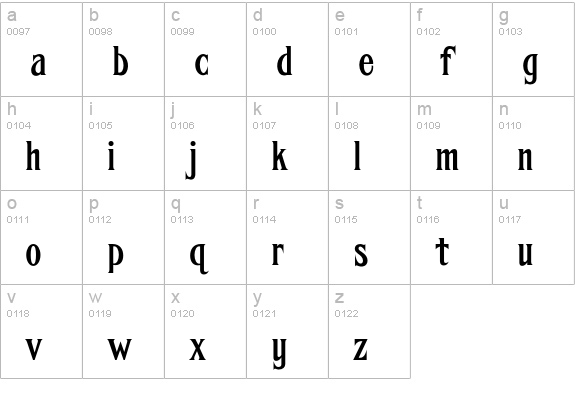
FHA Condensed French NC is a distinctive, condensed-width variant in the FHA typeface family \xE2\x80\x94 well suited to design and typography projects.
FHA Condensed French NC font is an exquisite typeface that effortlessly combines elegance with a touch of nostalgia. This condensed font exudes a sense of sophistication and refinement, making it perfect for a wide range of design projects. Its slim and sleek letterforms are delicately crafted, creating a harmonious balance between legibility and aesthetics. Designed with the utmost care and attention to detail, FHA Condensed French NC font captures the essence of French typography, adding a touch of Parisian charm to any design. Its condensed form allows for efficient use of space, making it an ideal choice for headlines, titles, and any text that needs to make a bold statement. One of the most remarkable aspects of this font is that it is free! Yes, you heard it right. FHA Condensed French NC font is freely available to download at FontsMarket.com. With just a few clicks, you can enhance your design projects with this stunning typeface without spending a dime. Whether you're working on a branding project, editorial design, or even creating eye-catching social media graphics, FHA Condensed French NC font will be your faithful companion. Its versatility and timeless appeal make it a must-have for designers, both seasoned professionals and beginners alike. So why wait? Embrace the beauty of FHA Condensed French NC font and elevate your design game to new heights. Download it for free at FontsMarket.com and let your creativity shine.